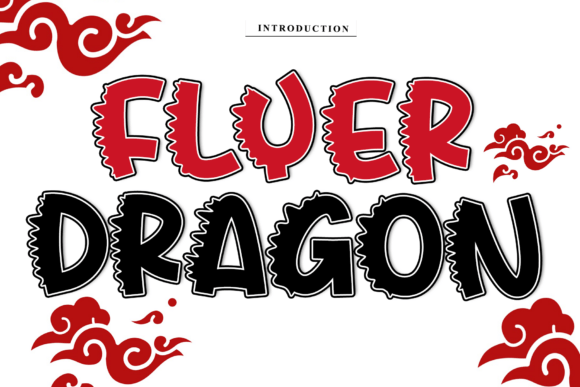
Unleash Your Creativity with the Flyer Dragon Font
Have you ever stared at a blank page, waiting for the perfect idea to strike? For designers, this moment can be both thrilling and intimidating. But what if you had the right tool to bring your vision to life? Enter the Flyer Dragon Font, a beautiful and timeless handwritten font that’s sure to make your designs stand out.
Whether you’re creating a logo, branding, or quote, the Flyer Dragon Font is the perfect choice. Its unique and beautiful touch will breathe life into your design, making it truly unforgettable. As a designer, you know how valuable it is to have the right font to convey your message. The Flyer Dragon Font is more than just a font – it’s a key to unlocking your creativity and taking your designs to the next level.
Flyer Dragon Font Key Features
- Unique Characteristics: The font features a unique blend of fantasy and modern elements, with intricate dragon-inspired designs and ornate details.
Flyer Dragon Font Review
Overall, I think the Flyer Dragon Font has some great qualities that make it perfect for certain designs. ✨ Its bold and playful style makes it a great choice for anything that needs a bit of whimsy and energy. The font’s wide range of sizes and styles also make it highly customizable, which is a definite plus. ✨ Additionally, the font’s compatibility with various software and platforms is seamless, which saves designers a lot of time and hassle.
- Playful and bold style
- Seamless compatibility with various software and platforms
- May be too over-the-top for more serious or professional designs
- Lack of fine-tuning options for advanced designers
Overall, I would give the Flyer Dragon Font 4 out of 5 stars. While it has some limitations, its strengths make it a great choice for the right projects. With a bit more fine-tuning and a more subtle approach to its use, I think it could be a truly top-notch font. As it stands, it’s still a great addition to any designer’s toolkit.
Tips for Getting the Most Out of the Flyer Dragon Font
For best results, use the Flyer Dragon Font in bold or italic styles to add emphasis and visual interest to your designs.
Experiment with different font sizes and combinations to create a unique and eye-catching layout.
Use the Flyer Dragon Font in conjunction with other creative elements, such as images and graphics, to add depth and visual appeal to your designs.
Great Vibes is a modern script font with a friendly and approachable feel. It’s perfect for designs that require a sense of elegance and sophistication, such as wedding invitations, greeting cards, and magazine headlines. Great Vibes is more cursive and flowing compared to Flyer Dragon Font, which is more geometric and bold.
Pacifico is a beautiful and elegant script font with a relaxed, beachy vibe. It’s ideal for designs that require a sense of calmness and serenity, such as travel brochures, spa menus, and outdoor advertising. Pacifico is more delicate and refined compared to Flyer Dragon Font, which is more dramatic and attention-grabbing.
Playfair Display is a luxurious and elegant serif font with a classic, high-end feel. It’s perfect for designs that require a sense of sophistication and refinement, such as luxury branding, high-end advertising, and special occasion invitations. Playfair Display is more formal and traditional compared to Flyer Dragon Font, which is more modern and edgy.